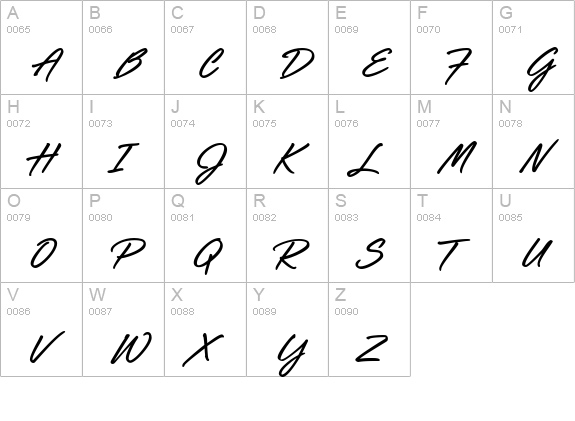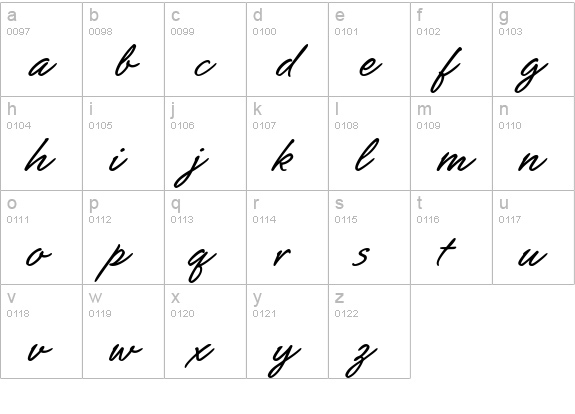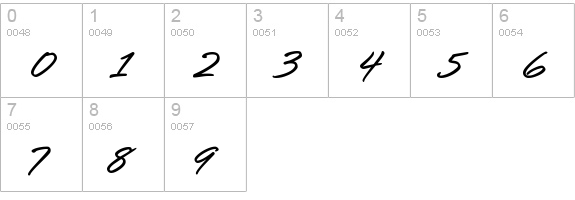
SlashHmkBold Font Details
Introducing SlashHmkBold, a captivating and modern font that is sure to make a bold statement in your designs. This unique typeface combines sleek lines with a hint of edginess, resulting in a truly eye-catching aesthetic. With its strong and confident appearance, SlashHmkBold is perfect for headlines, titles, and any design project that calls for a touch of boldness. Its distinctive letterforms exude a sense of energy and dynamism, making it an excellent choice for branding, advertising, and promotional materials. But what truly sets SlashHmkBold apart is its versatility. Whether you're working on a professional corporate project or a creative personal endeavor, this font effortlessly adapts to any context, adding a touch of sophistication and allure. And the best part? SlashHmkBold is available for free download exclusively at FontsMarket.com. That's right, you can enhance your designs with this exceptional font without spending a dime. It's a rare find in the design world, where premium quality often comes with a hefty price tag. But with SlashHmkBold, you can enjoy its powerful impact without breaking the bank. So don't miss out on this opportunity to elevate your designs with SlashHmkBold. Download it for free at FontsMarket.com and unlock a world of endless creative possibilities. Let SlashHmkBold be the secret weapon that transforms your projects from ordinary to extraordinary.